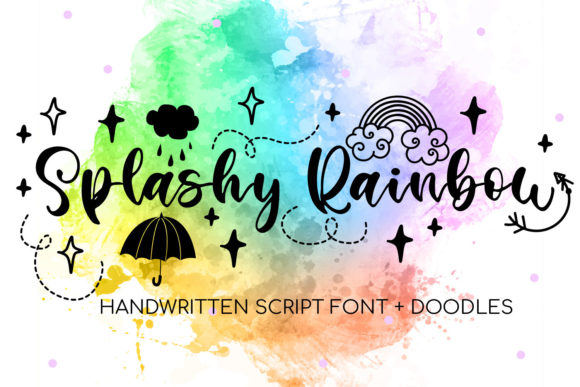
Embark on a vibrant lettering journey with Splashy Rainbow, a captivating script font brimming with boundless charm and personality. Its enchanting flow and playful spirit will effortlessly elevate your creative projects, adding a touch of whimsical elegance to every stroke. Whether you're crafting heartfelt cards, designing eye-catching branding materials, or creating unique labels, Splashy Rainbow will transform your words into works of art.
Unleash the magic of Splashy Rainbow and let your imagination run wild. Its meticulously crafted characters dance across the page, inviting you to explore a world of limitless possibilities. From heartfelt love letters to playful invitations, from whimsical social media posts to captivating marketing campaigns, Splashy Rainbow will add a spark of joy to every project you undertake.
Step into a world of boundless creativity with Splashy Rainbow, where your words become vibrant expressions of your individuality. Let its captivating curves and playful spirit ignite your imagination, transforming ordinary text into extraordinary works of art. With Splashy Rainbow, every letter tells a story, every word carries weight, and every sentence captivates the heart.